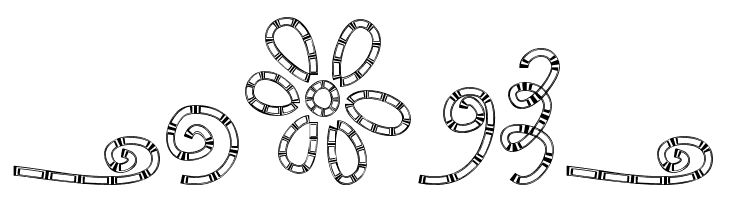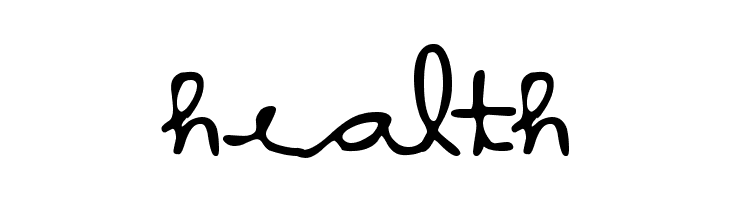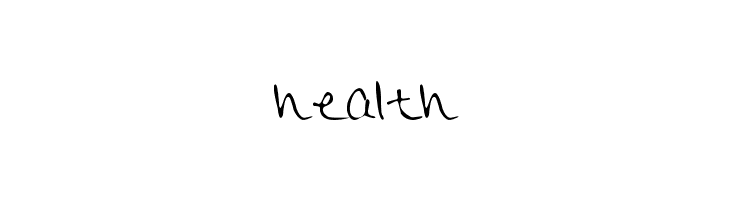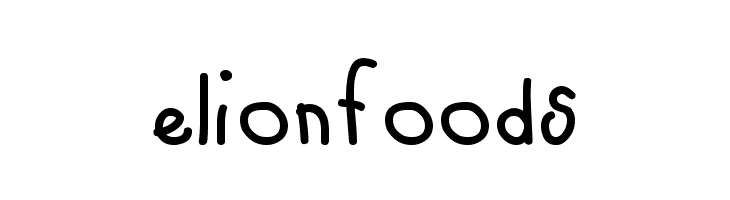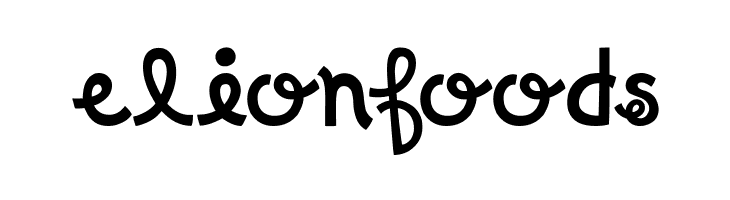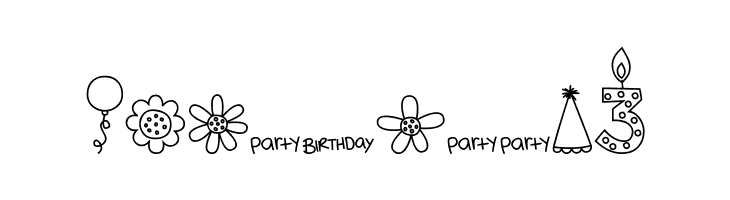
A playful, curly font with whimsical and festive letterforms.
A playful, doodle-style font with birthday-themed illustrations.
A playful, whimsical script font with a handwritten feel.
A bold, rounded font with a playful and friendly appearance.
A playful, heart-themed decorative font with a hand-drawn feel.
A whimsical, doodle-inspired font with playful swirls and decorative details.
A playful, handwritten font with whimsical, dynamic strokes and decorative elements.
A playful and flowing cursive font with a handwritten appearance.
A playful, casual handwritten font with fluid strokes.